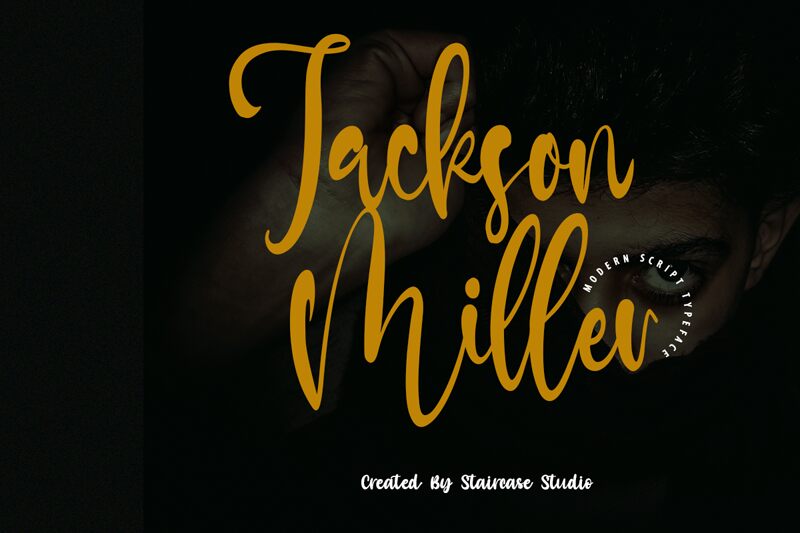
Jackson Miller
Jackson Miller, designed by Staircase Studio, is a narrow, light handwritten font perfect for creating eye-catching titles and logos. It is also great for product packaging, wedding invitations and website headers.